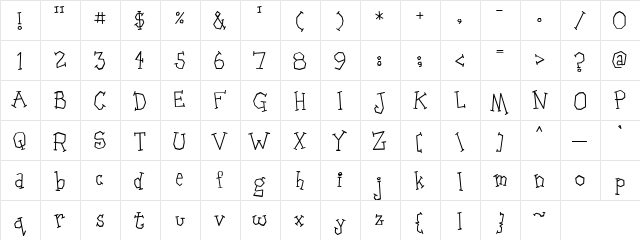
LD Jillogical Regular
Design Context for LD Jillogical Typeface
LD Jillogical is a composed and adaptable typeface that performs quietly and consistently across a wide range of design contexts.